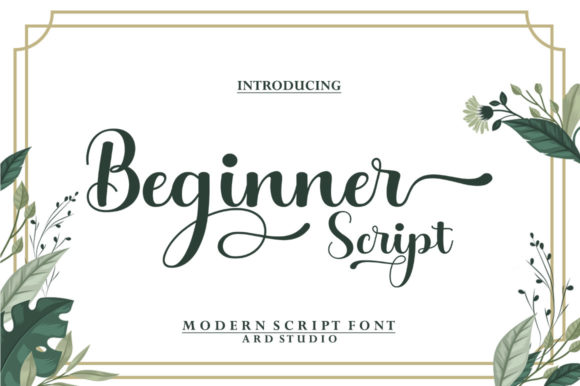
Journey into the realm of Beginner Script, a font crafted with the utmost care and attention to detail. This exquisitely designed font exudes elegance and grace, capturing the essence of handwritten artistry. Its smooth, flowing lines evoke a sense of effortless beauty, while its balanced character ensures seamless integration into a myriad of design projects.
With Beginner Script, the possibilities are boundless. Its versatility shines through in banner headings, where its captivating presence commands attention, leaving an indelible impression on your audience. Unleash your creativity and watch as Beginner Script transforms your designs into masterpieces.
Beginner Script's PUA encoding is a testament to its user-friendly nature. Accessing the full repertoire of glyphs and swashes is a breeze, empowering you to add an extra layer of charm and sophistication to your projects.
Welcome to the world of Beginner Script, where beauty meets functionality. Experience the joy of effortless design and elevate your projects to new heights. Embrace the allure of Beginner Script and let your creativity soar.
**Key Features:**
* Exquisitely designed script font
* Smooth, flowing lines and balanced character
* Perfect for banner headings and design projects
* PUA encoded for easy access to glyphs and swashes
* Transform your designs into masterpieces